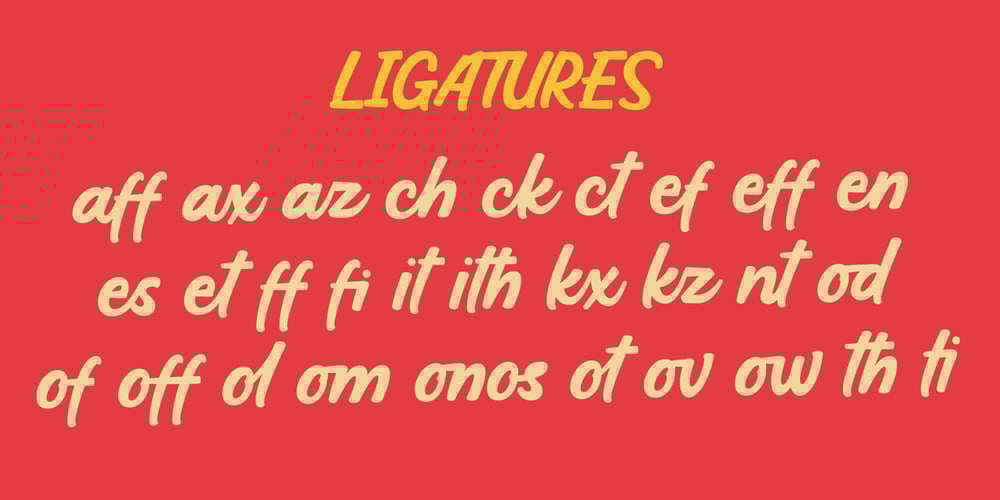
Hoffers
Hoffers font
Hoffers Font Family was designed by Abdilah and published by Konstantine Studio. Hoffers contains 1 styles and family package options. Say hello to Hoffers. A bold and casual script typeface with implementation of markers handwriting vibes. Some are connected and the others aren’t. Perfectly fit for casual logotype, food and beverage branding, book covers, anytime you need to tell fun stories, Hoffers is the answer. Packed up with 30 ligatures to make it look seamlessly handwritten. Carefully crafted click by click to keep it clean in every strokes.